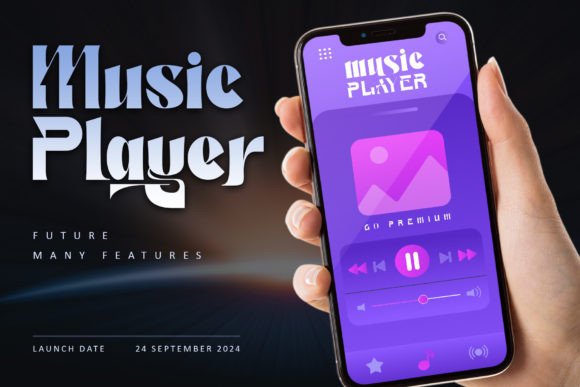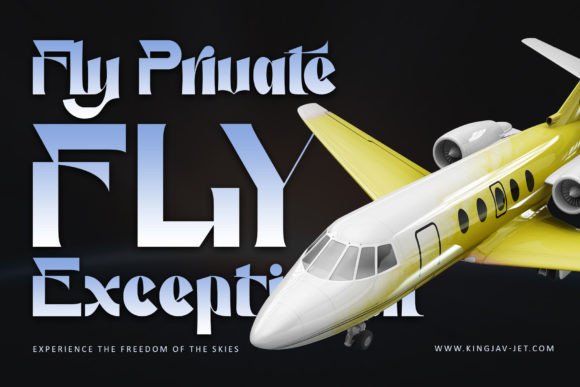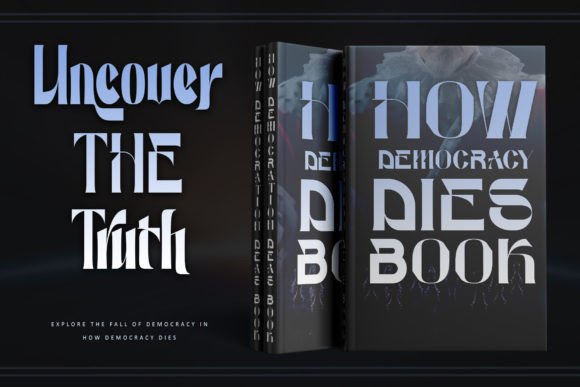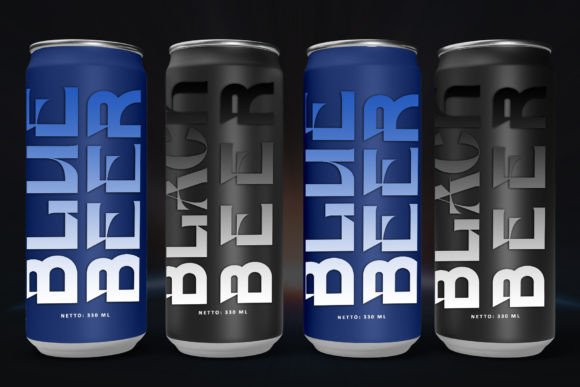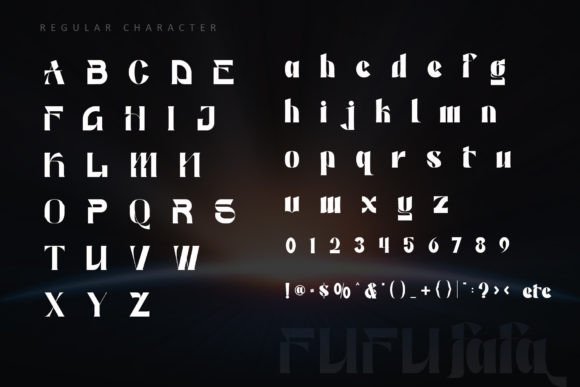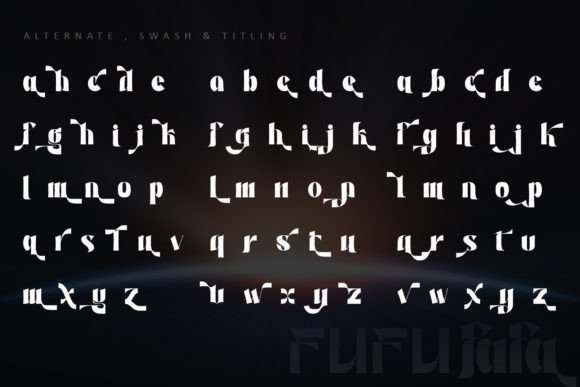
Unlocking Creativity with Fufufafa: A Serif Font Family for the Ages
I’ll never forget the design struggle I faced while working on a branding project for a boutique coffee shop. My client wanted a font that exuded elegance, yet had a playful twist. After hours of scouring font libraries, I stumbled upon Fufufafa – a versatile serif font family that instantly captured the essence of their brand. In this article, I’ll share my journey with Fufufafa, its features, and how you can harness its creative potential for your projects.
A Personal Review: What I Love and What to Watch Out For
- ✅ Versatility: Fufufafa comes in regular, italic, bold, and bold italic styles, making it perfect for a wide range of design applications.
- ✅ Elegant and Playful: This font family strikes a beautiful balance between classic sophistication and modern charm.
- ✅ PUA Encoding: With PUA encoding, accessing unique glyphs and swashes is a breeze, allowing for refined detail and distinctive flair in your designs.
- ✅ Easy to Read: Fufufafa’s serif design ensures excellent readability, even at smaller font sizes.
Small Quirks to Consider 🤔
- ⚠️ Glyph Overload: With so many glyphs and swashes at your disposal, it’s easy to get carried away. Be mindful of your design’s overall aesthetic to avoid visual overload.
- ⚠️ Italic Style Limitations: While the italic styles are beautifully crafted, they may not be as versatile as the regular and bold styles in certain contexts.
The Story Behind Fufufafa: A Glimpse into Its Design Inspiration
Fufufafa’s design journey began with a passion project by an independent type foundry. The goal was to create a font family that would blend traditional serif elements with a touch of playfulness. After months of refinement, Fufufafa was born – a versatile and elegant font family designed to inspire creativity.
| What is Fufufafa’s primary design style? | Fufufafa is a serif font family with a blend of classic elegance and modern charm. |
| Is Fufufafa suitable for body text? | Yes, Fufufafa is designed to be highly readable, making it suitable for body text in various design applications. |
| Can I access Fufufafa’s glyphs and swashes in design software? | Yes, Fufufafa’s PUA encoding allows for easy access to glyphs and swashes in compatible design software. |
With Fufufafa, you can unlock a world of creative possibilities. Its elegant design, versatility, and OpenType features make it an excellent addition to any design project. Whether you’re a seasoned designer or a creative hobbyist, Fufufafa is sure to inspire your next masterpiece.